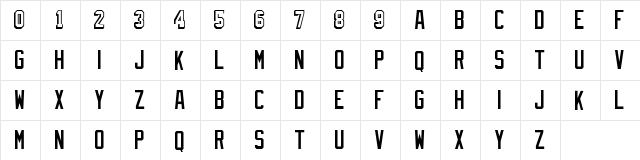
NHL NY Rangers Outline Regular Font Preview
NHL NY Rangers Outline Regular
Design Context for NHL NY Rangers Outline Typeface
NHL NY Rangers Outline brings ornamental detail and strong personality to headlines and identities, where visual impact matters more than quiet functionality.
Font Pairing: Pair with a clean neutral sans-serif for body copy to let NHL NY Rangers Outline's character lead without overwhelming the composition.
Pro Tip: Treat NHL NY Rangers Outline as the centrepiece of your typographic hierarchy. One strong heading set in a decorative face can carry an entire layout.